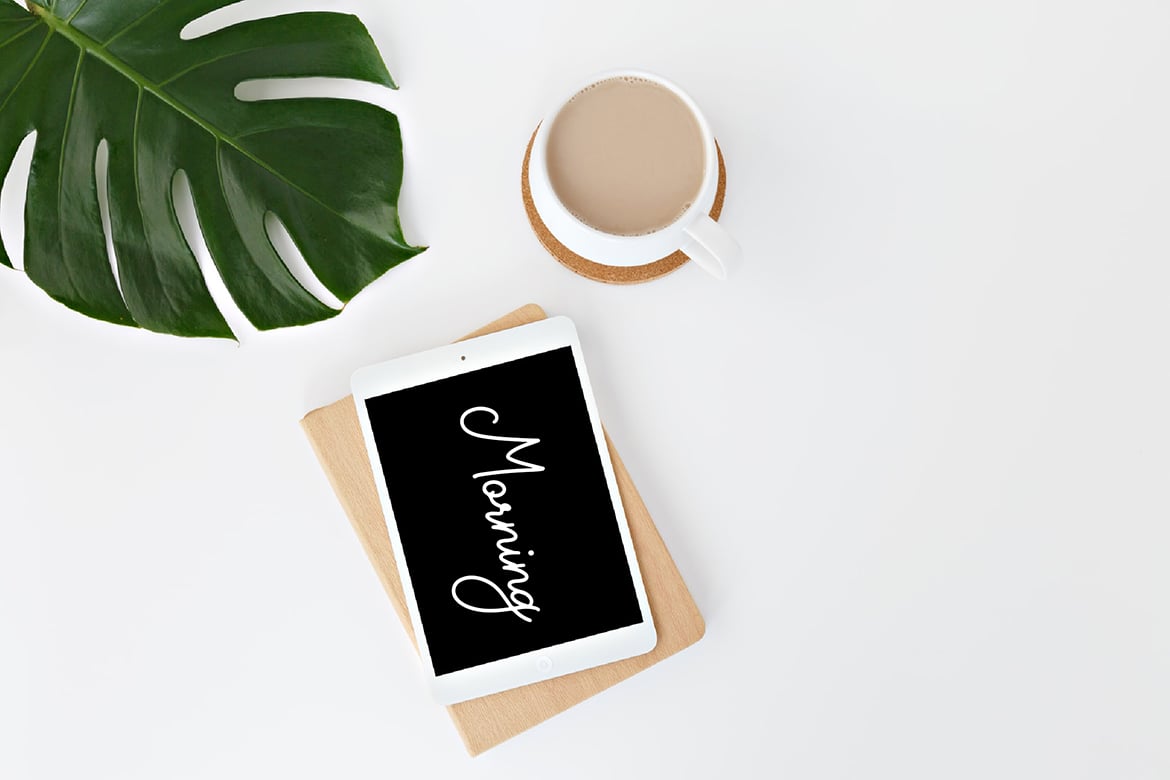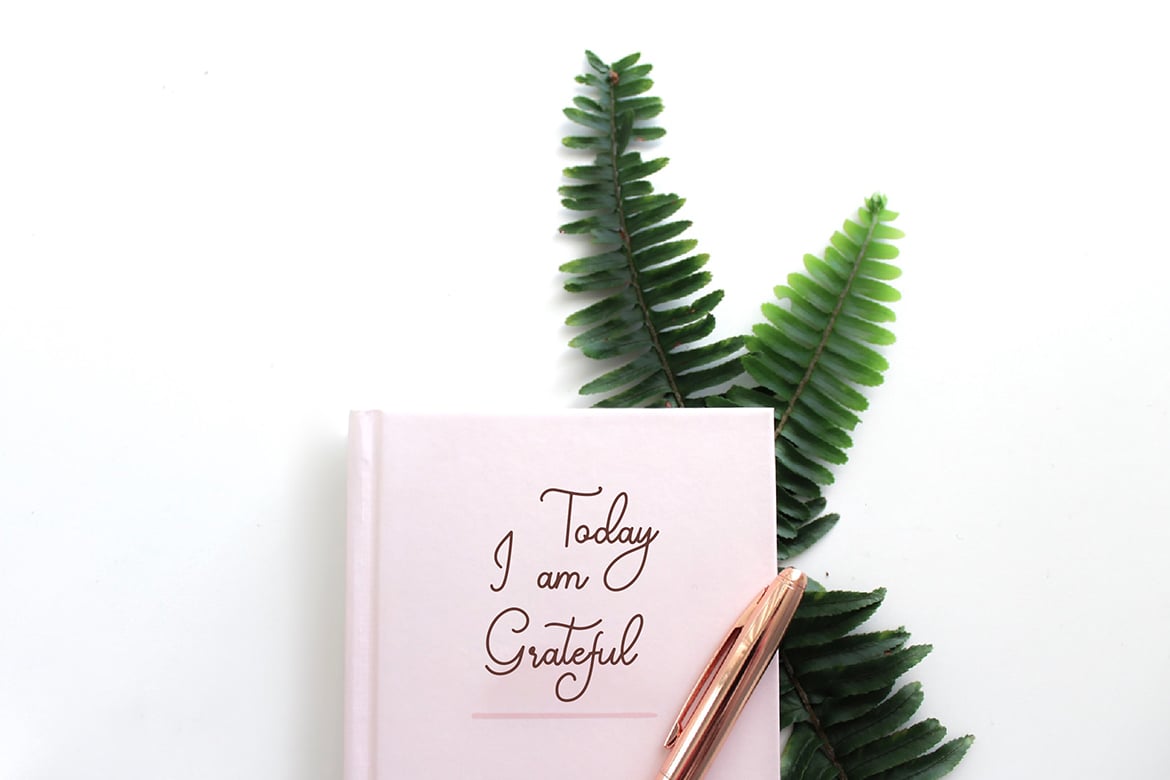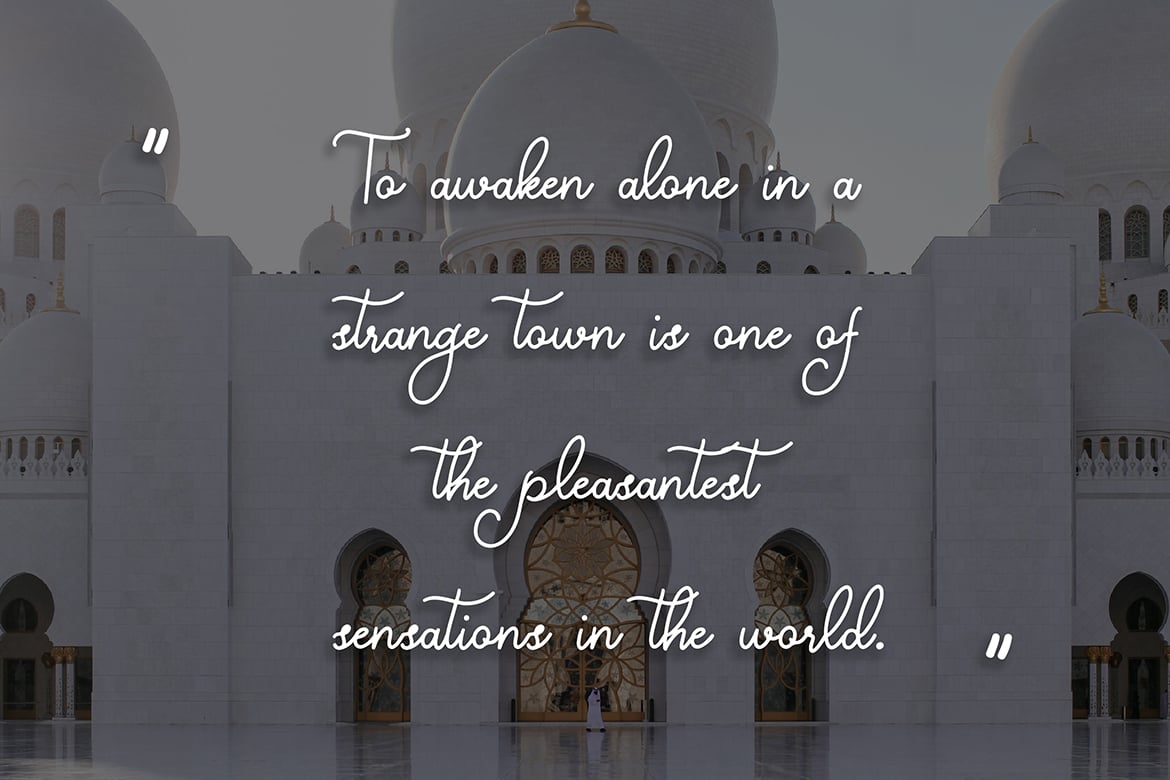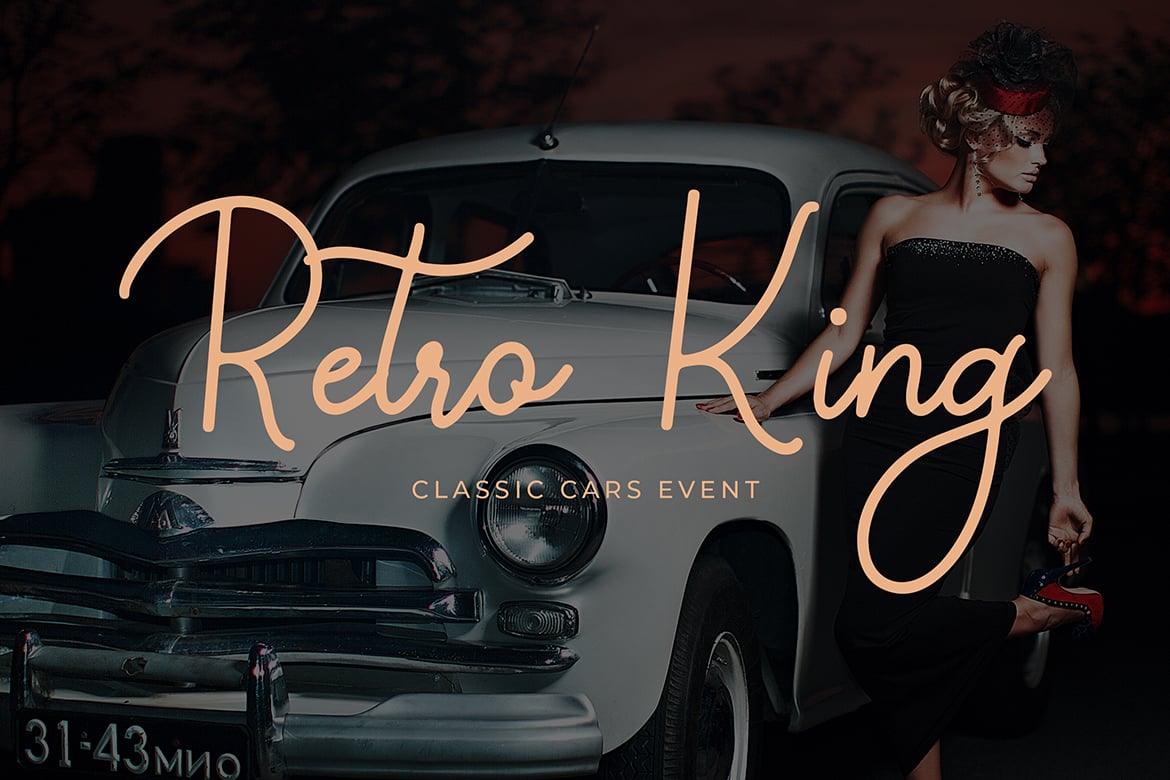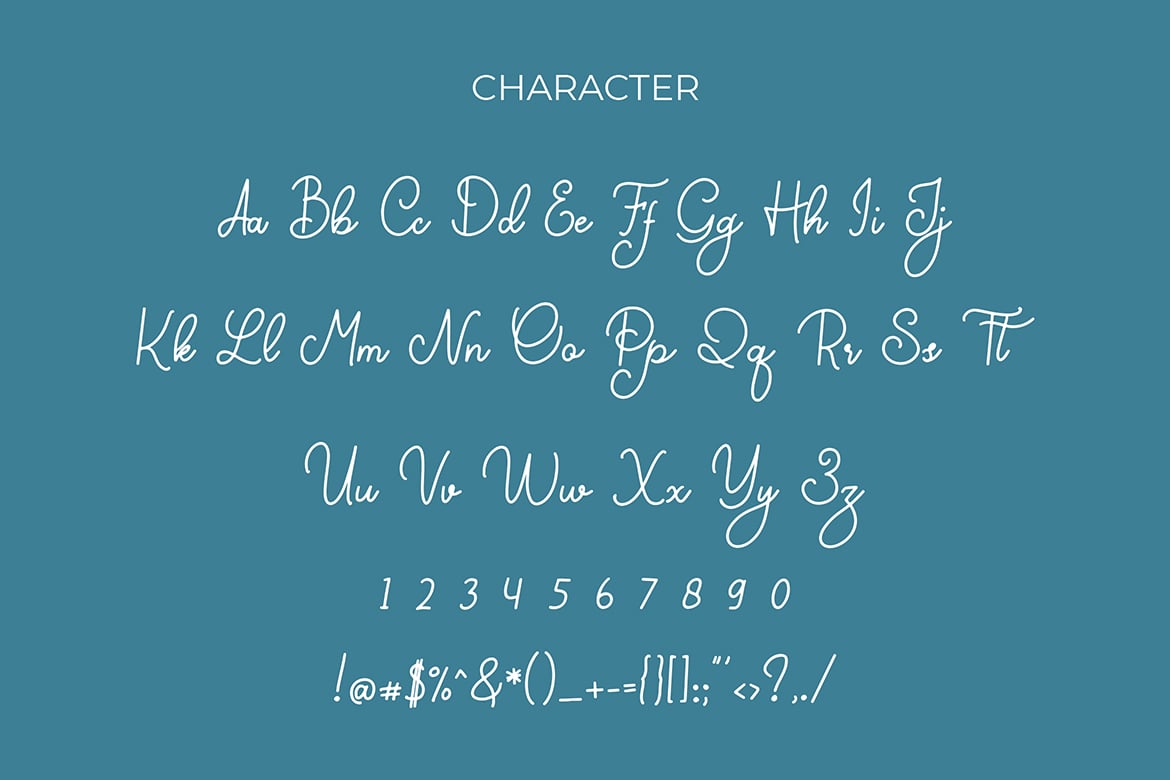
Gemblo Calligraphy Monoline Font
Gemblo is an exciting calligraphy font with monoline style. Fall in love with its elegantly playful nature!
Gemblo is perfect for branding projects, logo, wedding designs, social media posts, advertisements, product packaging, product designs, label, photography, watermark, invitation, stationery and any projects.